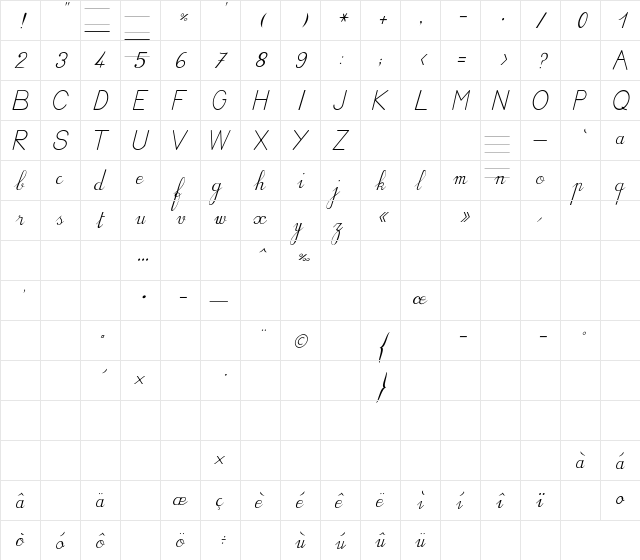
BV Cursive Ital Italic
Design Context for BV Cursive Ital Typeface
BV Cursive Ital flows with the natural rhythm of handwritten lettering, making it ideal for designs that call for warmth and personal expression.
Font Pairing: Combine BV Cursive Ital with a simple geometric sans for maximum contrast — the tension between flowing curves and clean structure is a classic typographic pairing.
Pro Tip: Use BV Cursive Ital for short runs of text — names, titles, or taglines. Extended body copy in script faces tires the eye quickly.